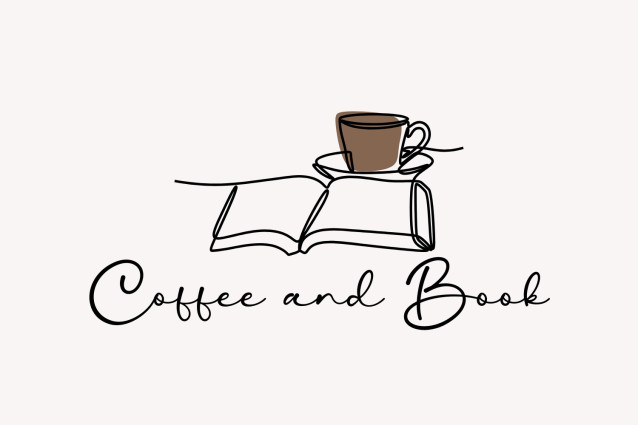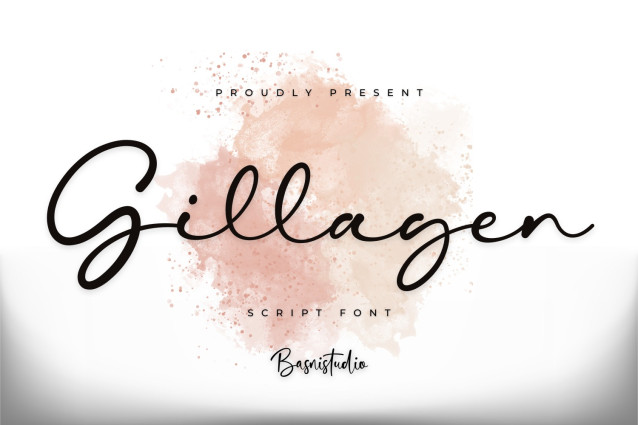
Gillagen Script Font
Gillagen Script Font is a Script Font that adds a elegant, versatile touch to everything from branding and social media to invitations and packaging.
✔ Elegant & Versatile – Perfect for logos, quotes, greeting cards, and more
✔ Authentic Handwritten Feel – Created with real pen strokes for a natural look
Whether you’re building a powerful brand identity or crafting a standout logo, Gillagen is a Script Font